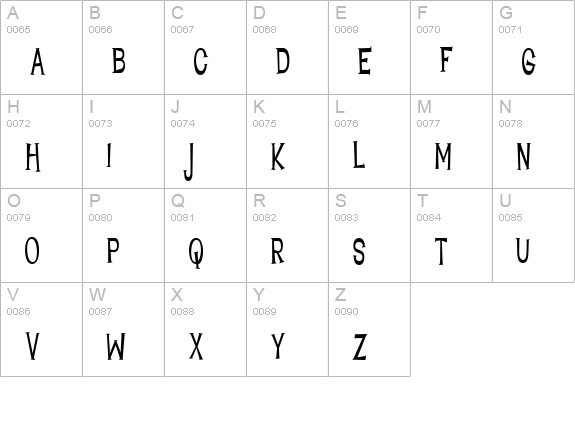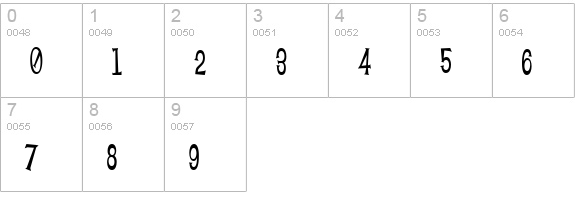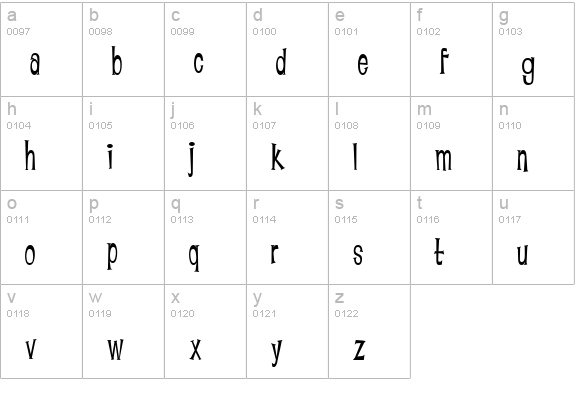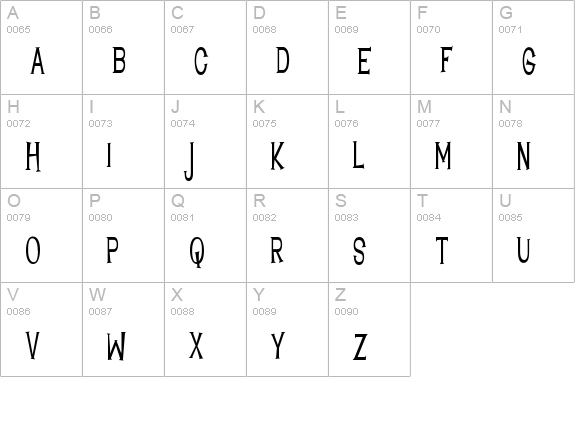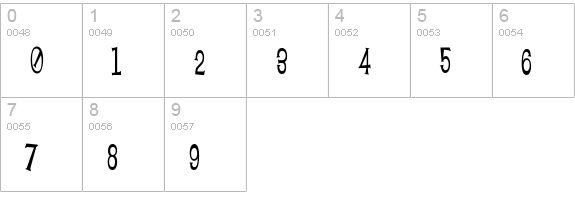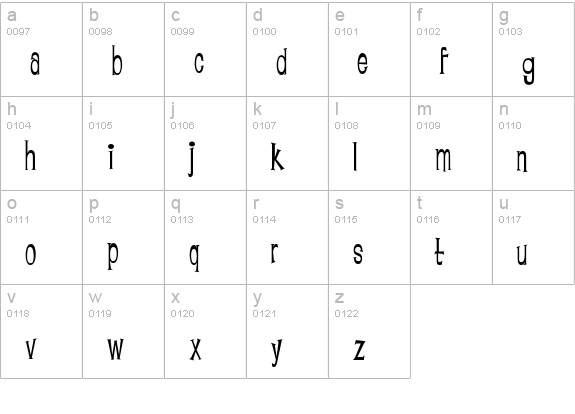
Lounge Bait Font Details
Introducing Lounge Bait font, a sleek and sophisticated typeface that exudes elegance and charm. With its modern yet timeless design, Lounge Bait is the perfect choice for adding a touch of class to any project. Whether you're working on a branding campaign, website design, or print materials, this font will elevate your work to the next level. What sets Lounge Bait font apart is not only its stunning aesthetics but also its versatility. From headlines to body text, this font can be used in a variety of design applications with ease. Its clean lines and stylish curves make it a standout choice for any project. And the best part? Lounge Bait font is completely free to download at FontsMarket.com. That's right, you can elevate your design game without breaking the bank. Don't miss out on this opportunity to add a touch of sophistication to your projects with Lounge Bait font. Download it today and let your creativity soar!